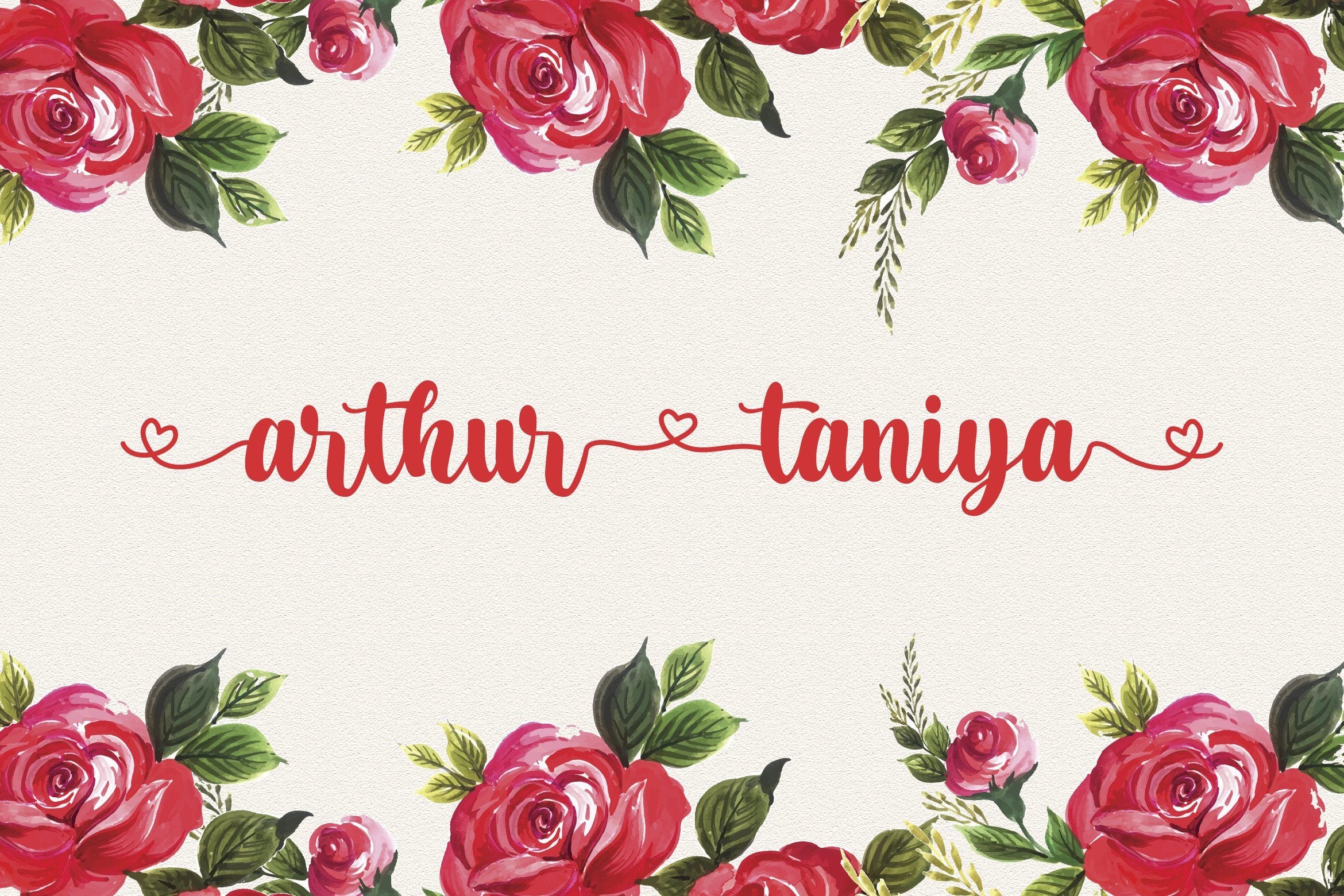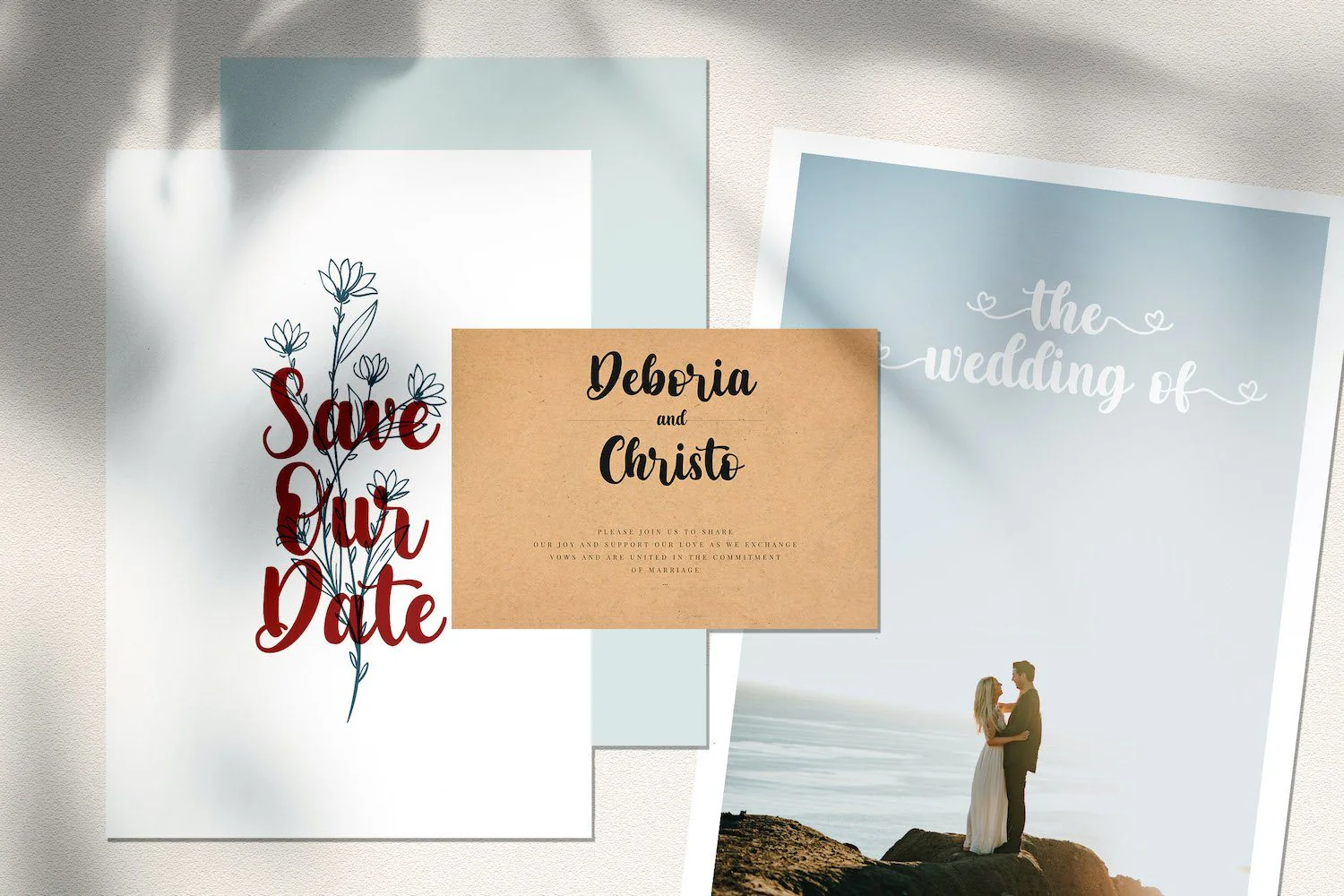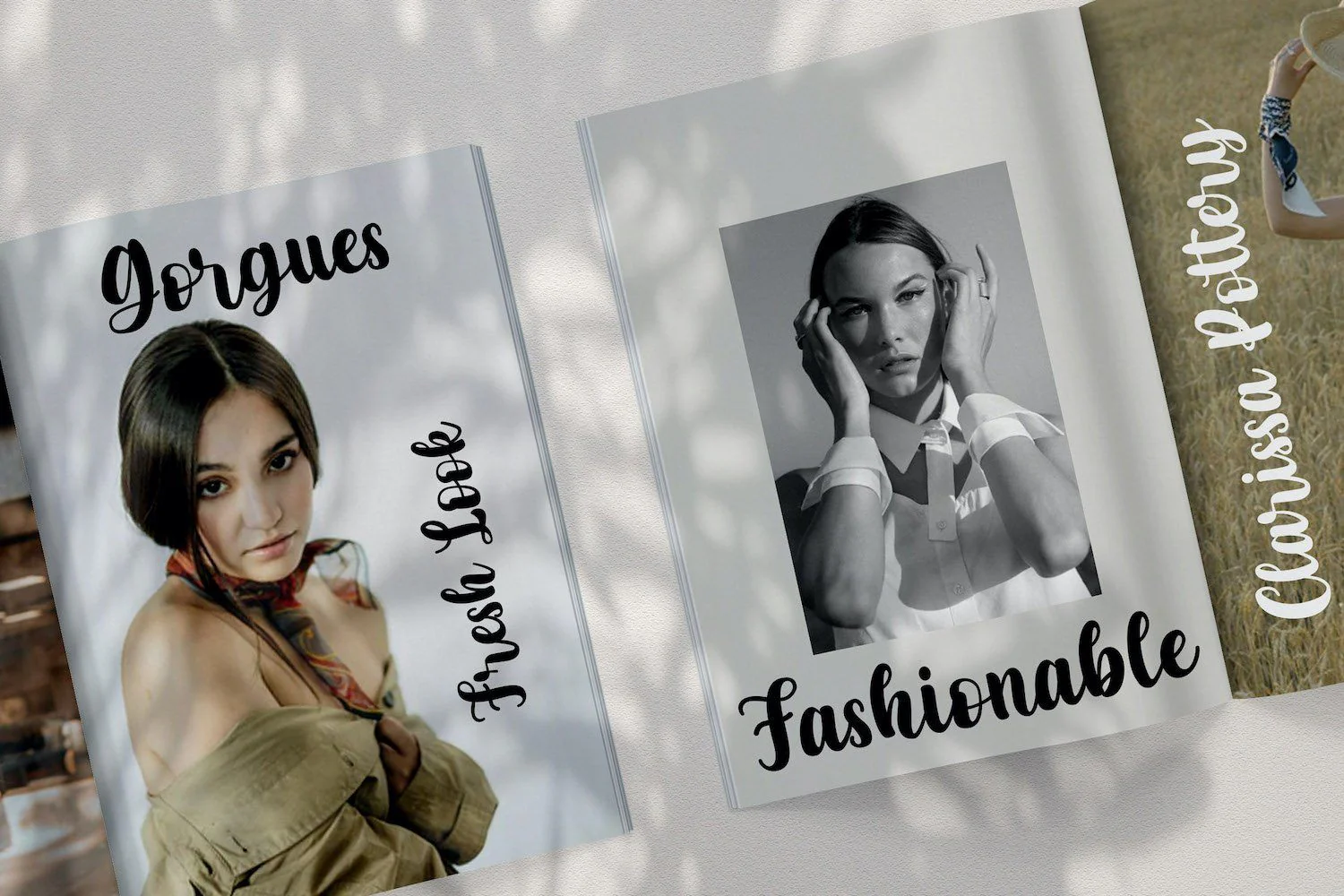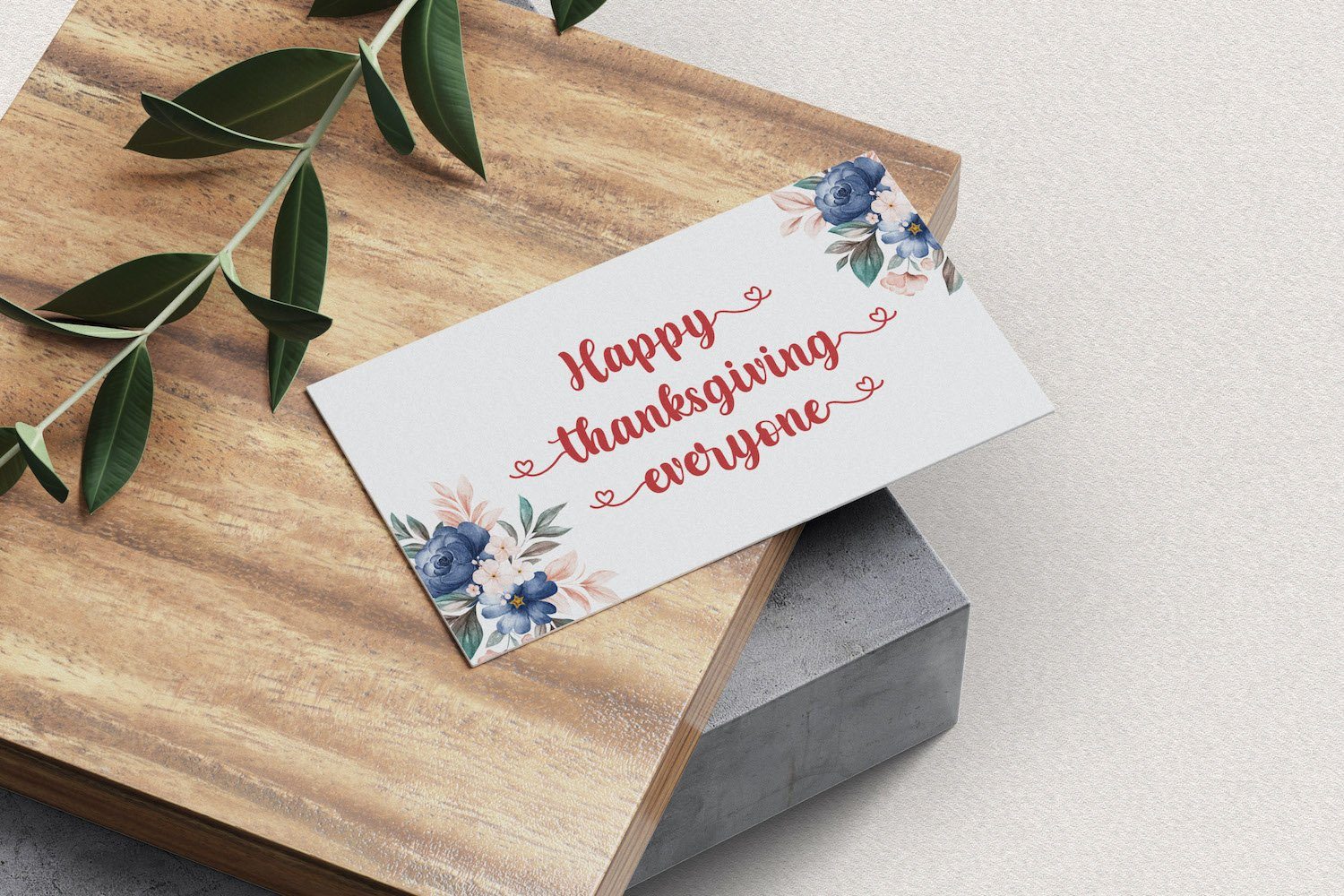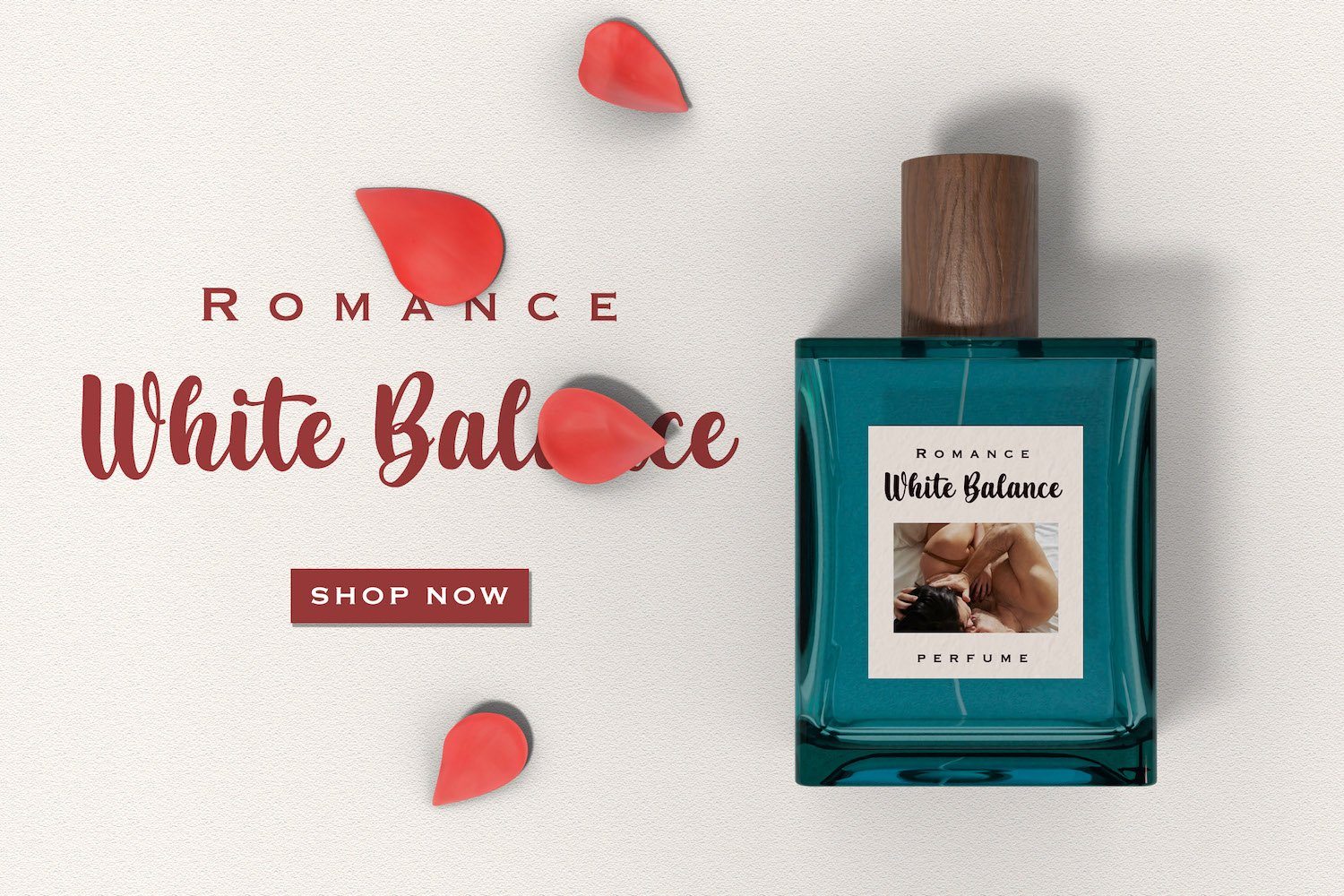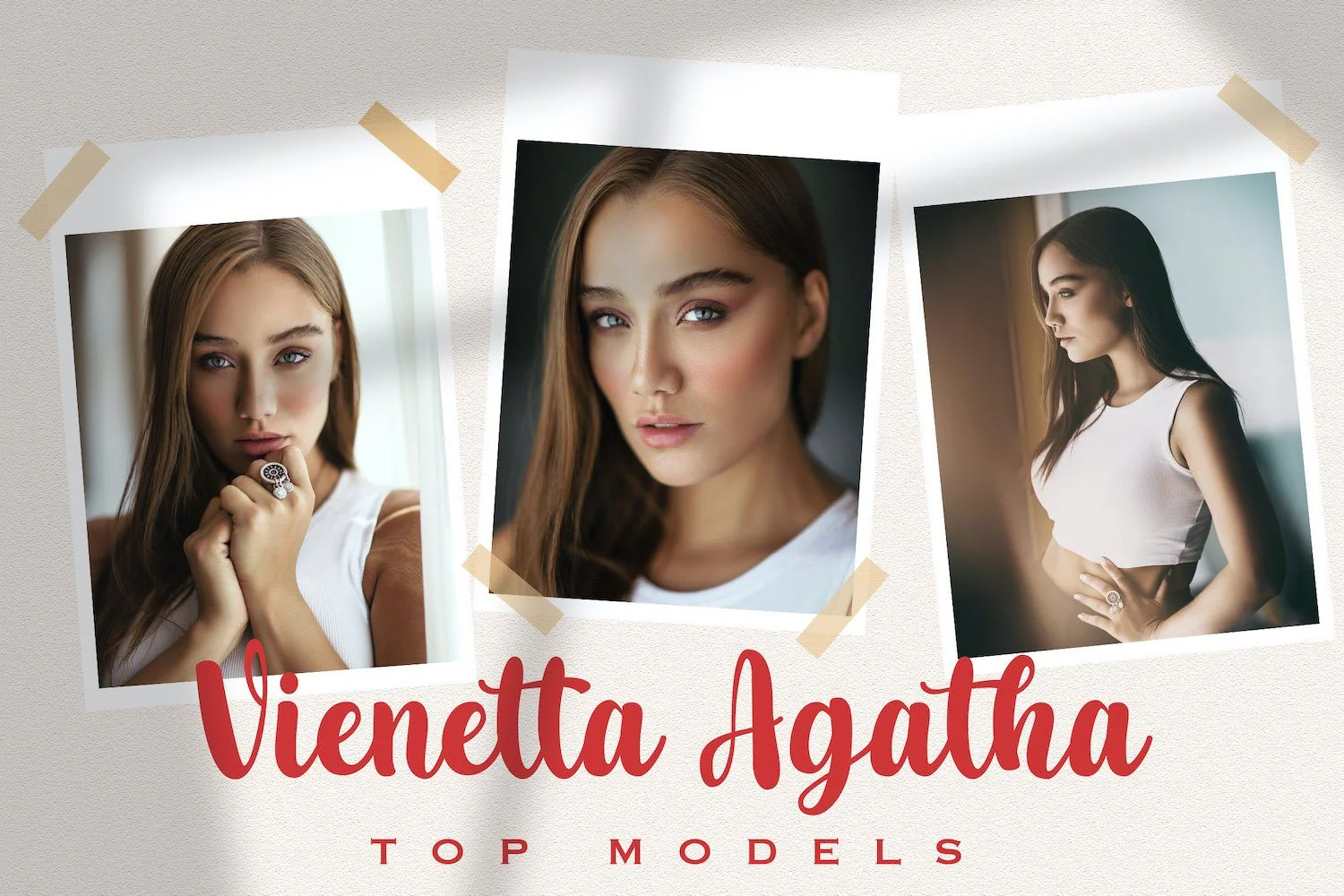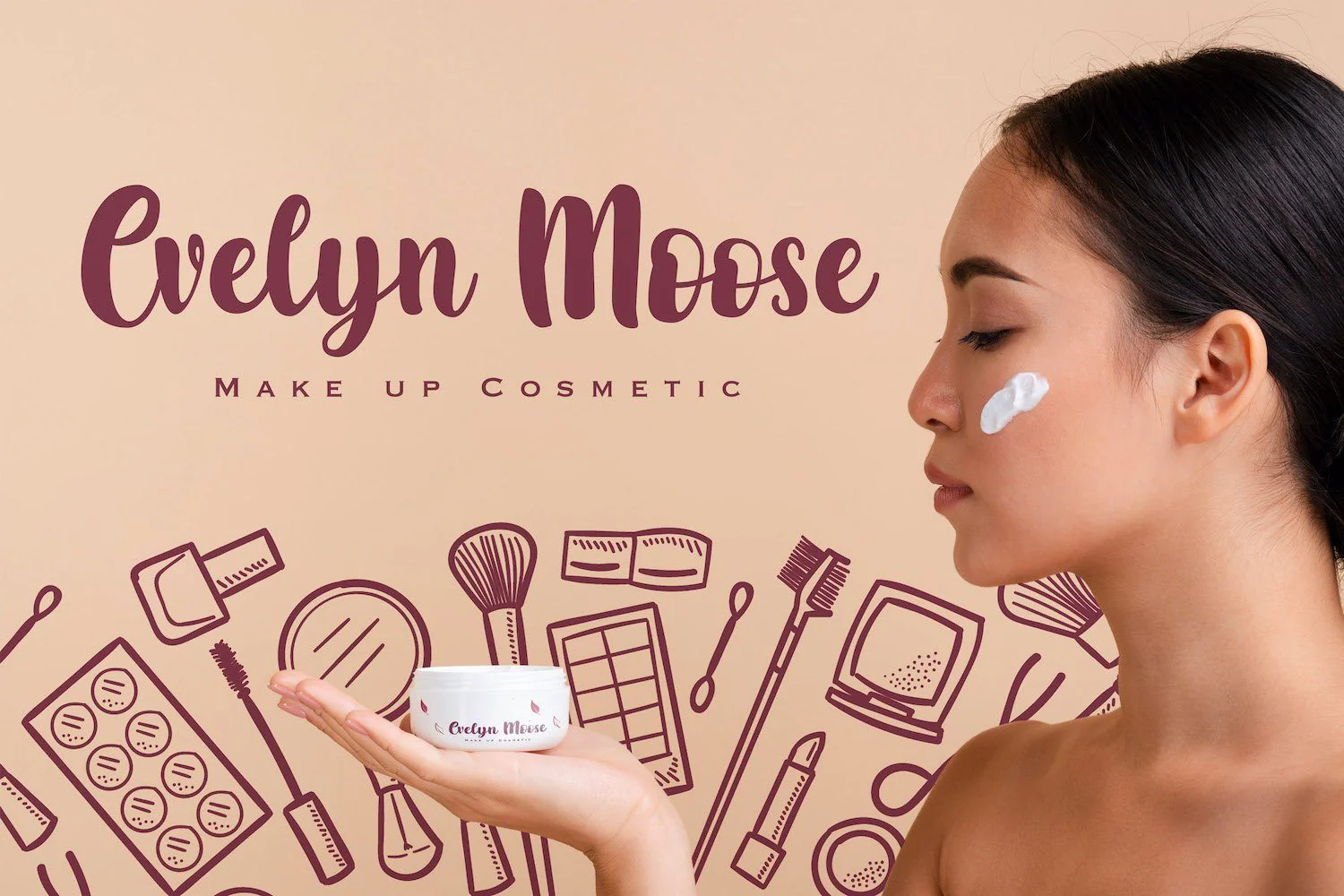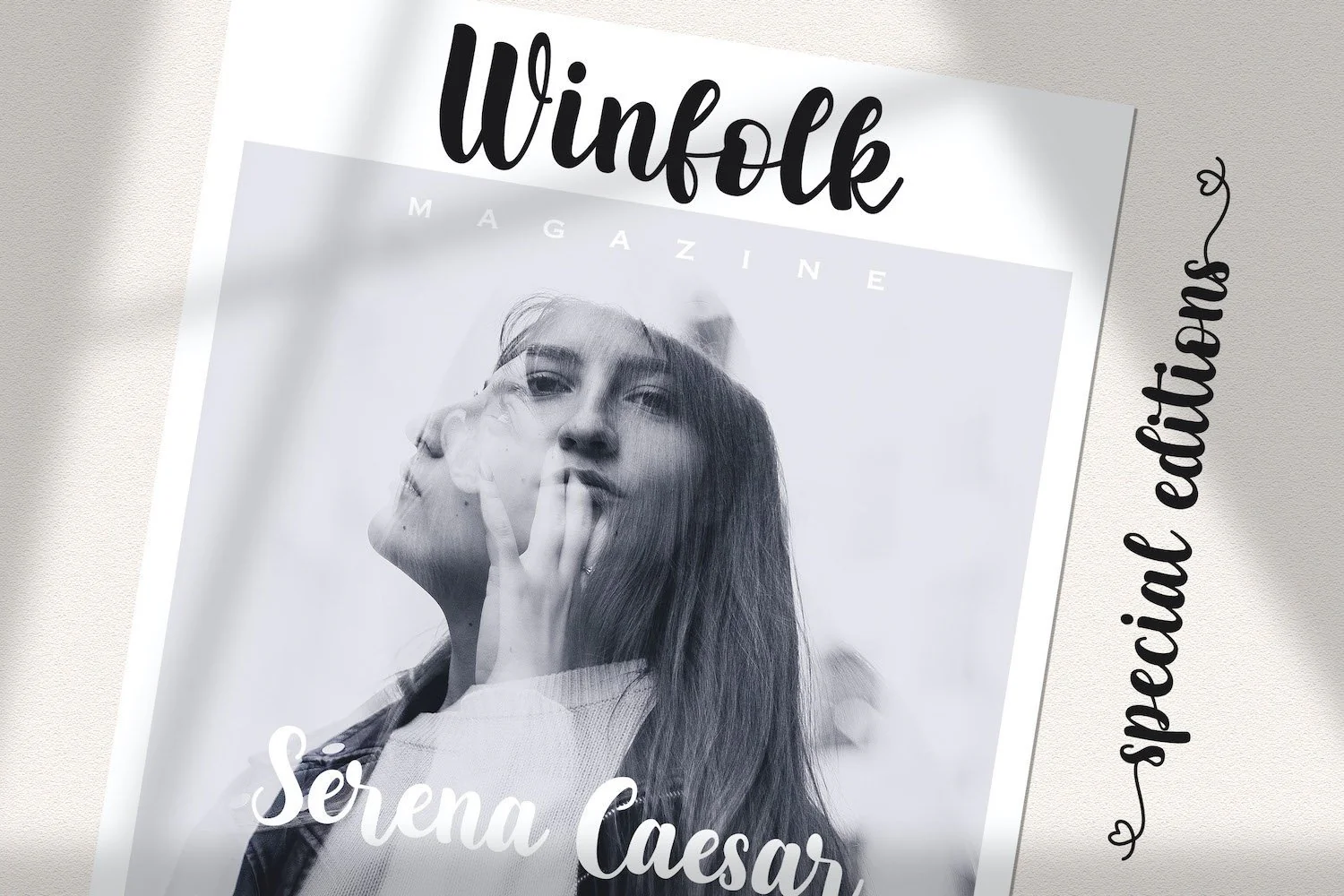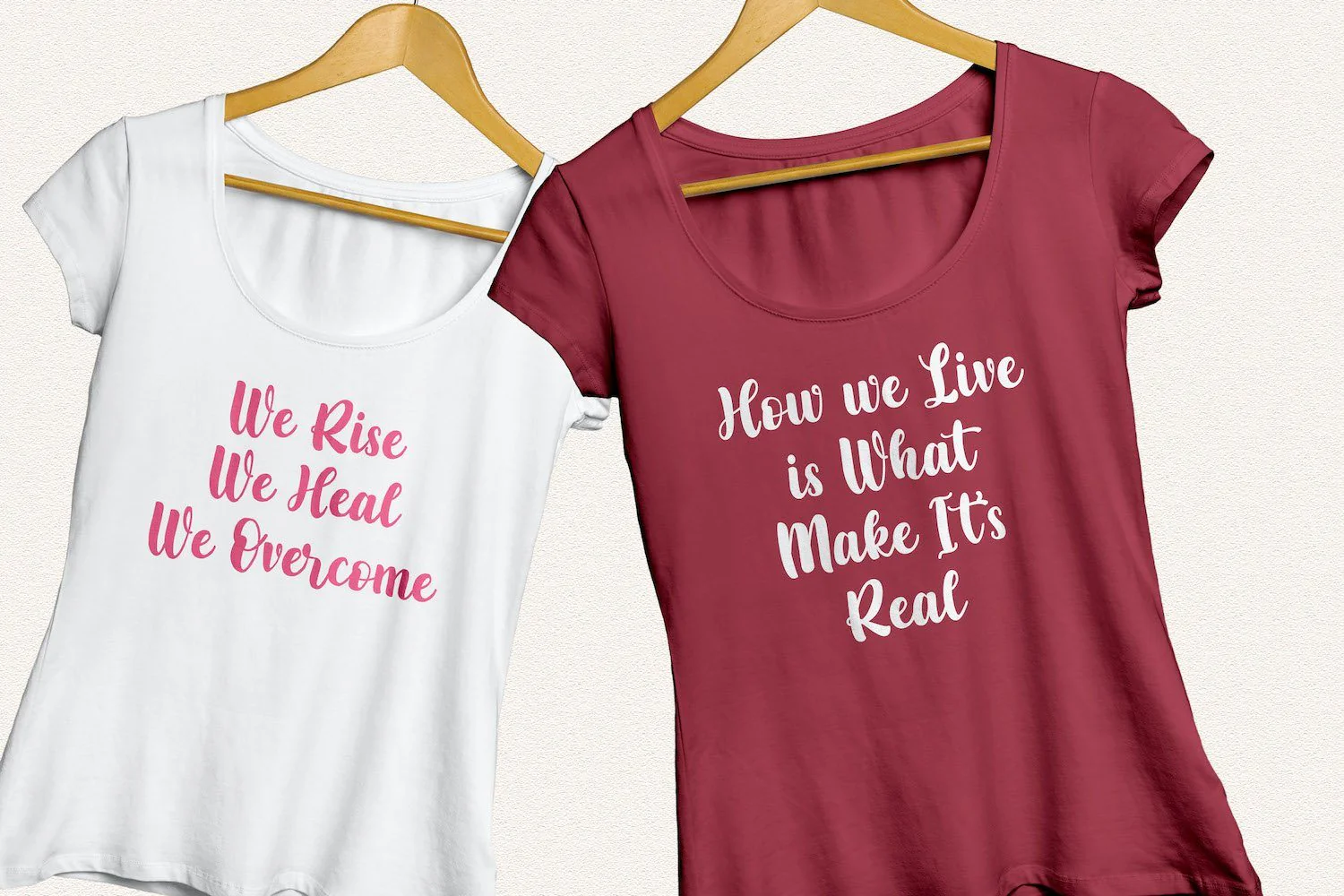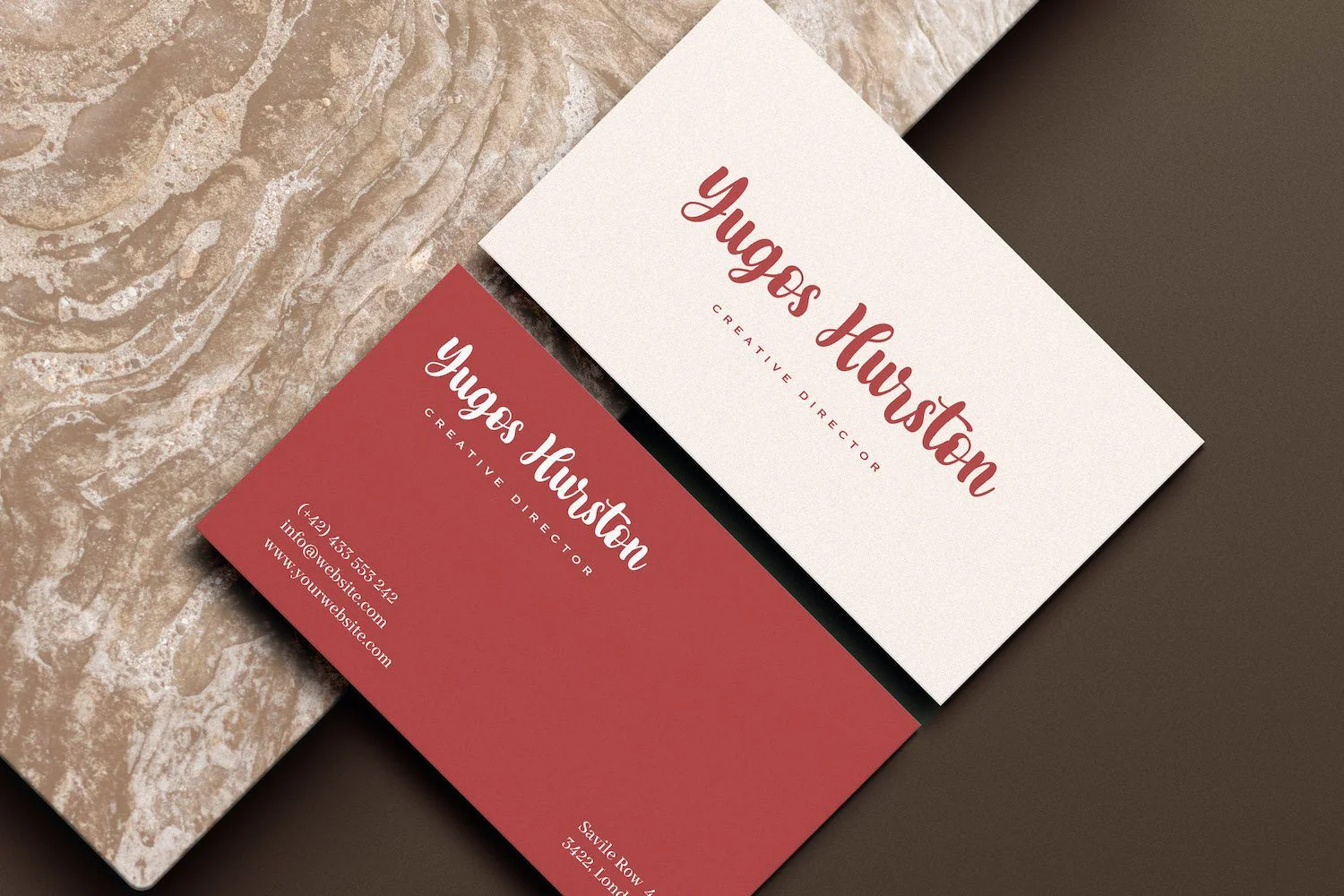
Arthur Taniya - Lovely Calligraphy Font
Introducing Arthur Taniya - Lovely Calligraphy Font
Arthur Taniya is an exquisite handwritten font, masterfully designed to become a true favorite. It maintains its classy calligraphic influences while feeling contemporary and fresh. Fall in love with it and bring your projects to the highest levels!
Introducing Arthur Taniya - Lovely Calligraphy Font
Arthur Taniya is an exquisite handwritten font, masterfully designed to become a true favorite. It maintains its classy calligraphic influences while feeling contemporary and fresh. Fall in love with it and bring your projects to the highest levels!